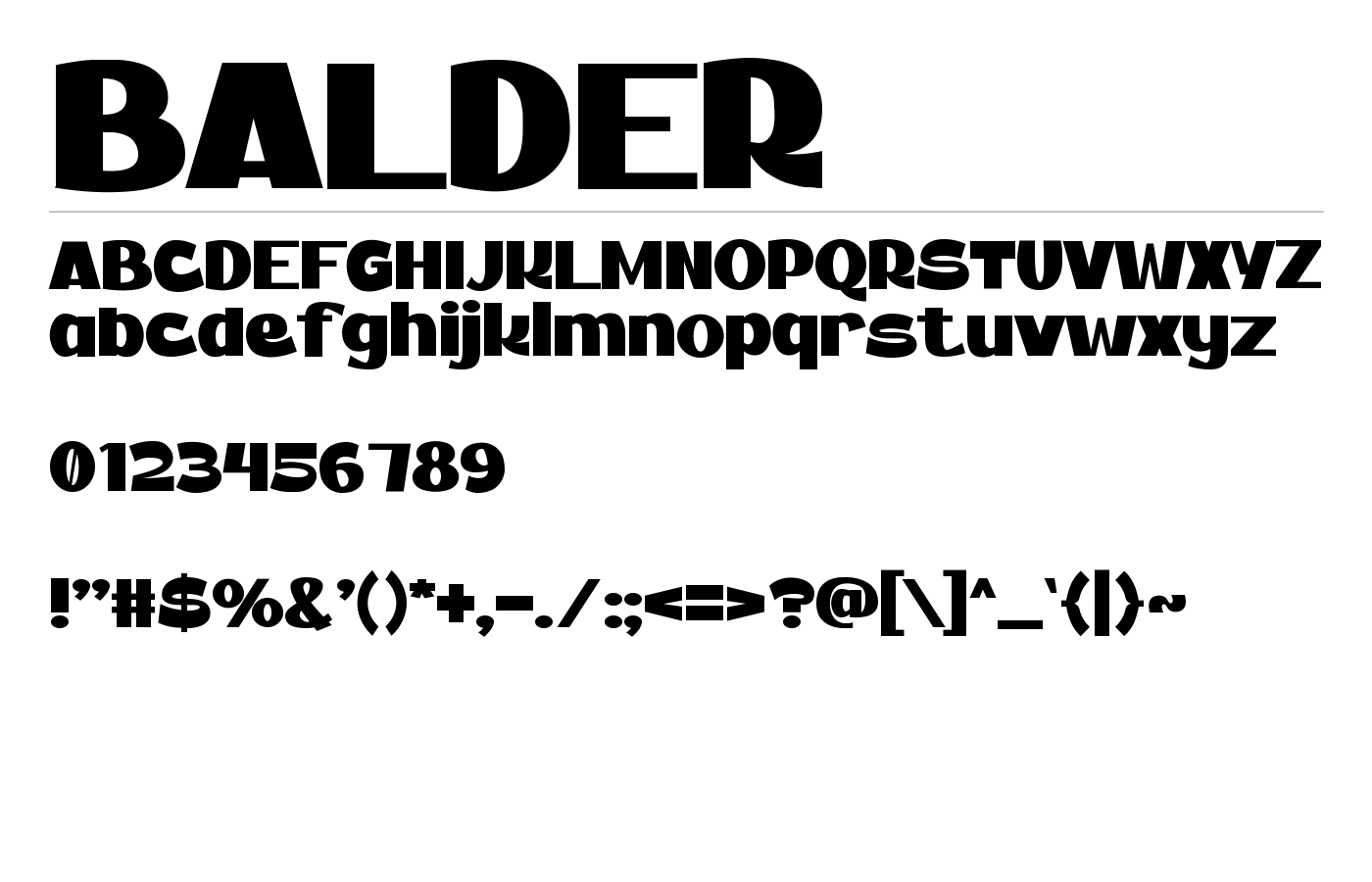
Balder is a bold, condensed sans serif font with a playful and slightly quirky character, marked by its strong, solid strokes and unusual letter shapes like the angular tail of the "R" and the curved leg of the "g." Its high x-height and compact letterforms make it highly legible while conveying a confident, energetic personality, perfect for eye-catching headlines, branding, and editorial use where a modern yet distinctive statement is needed.
BALDER Font
About BALDER Font
| Font family | BALDER Font |
| Designer | PINISIART Team |